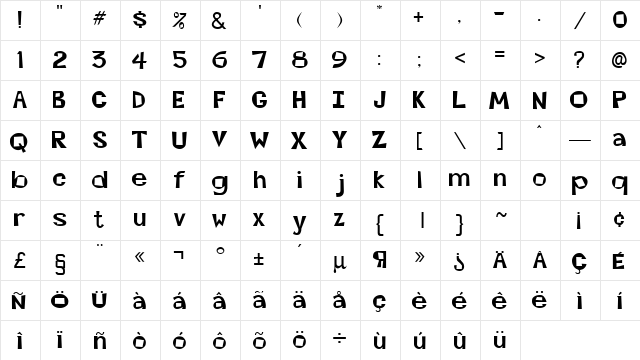
Beatsville Regular Font Preview
Beatsville Regular
Beatsville Regular Font Details
Design Context for Beatsville Typeface
Beatsville offers clean, dependable letterforms without strong stylistic allegiance, making it a practical choice for designers who need flexibility.
Pro Tip: Use Beatsville in both headline and body roles to test its range before committing to a single application.